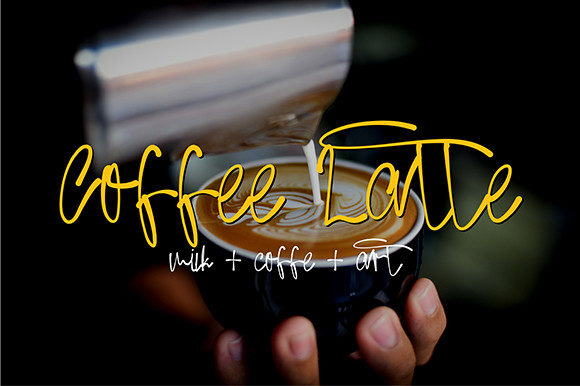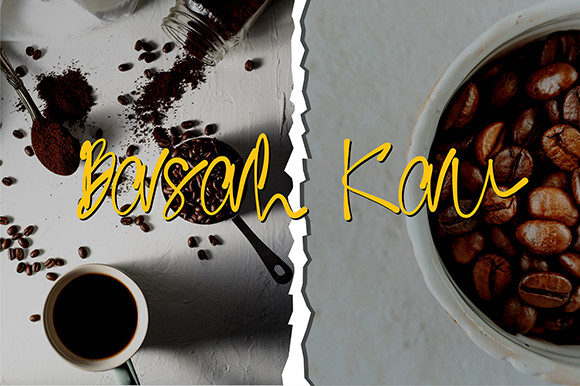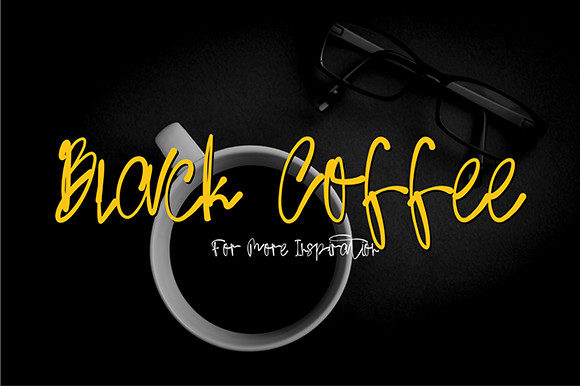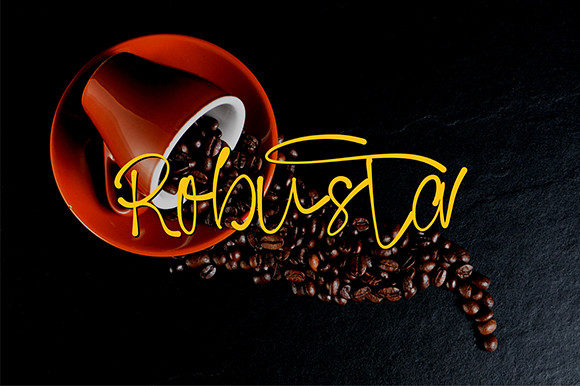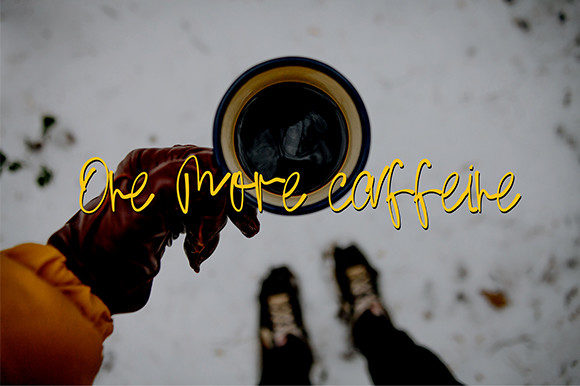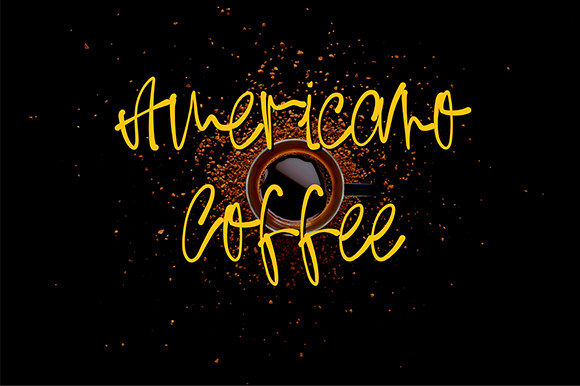
Introduction to Sektor Coffee Font
Have you ever stumbled upon a design that just screams ‘relaxation’? Maybe it’s a laid-back logo for a coffee shop, or a warm invitation for a weekend getaway. Whatever it is, it’s the kind of thing that makes you feel all cozy and inspired. For designers, finding that perfect visual language can be a game-changer. And that’s exactly where the Sektor Coffee Font comes in – a high-quality, free download that’s about to become your new go-to design resource.
With its unique, asymmetric style and casual handwriting feel, the Sektor Coffee Font is perfect for adding a relaxed touch to your creative projects. Whether you’re working on a branding project for a coffee shop or just need a font to give your design a little personality, this font is sure to deliver. Plus, its transparent background makes it super easy to use and customize.
Key Features of Sektor Coffee Font
- High-quality design for creative projects: Sektor Coffee Font is a premium font designed to elevate your designs and add a touch of sophistication.
- Transparent background: This font features a transparent background, making it easy to overlay on images or other design elements.
- Design resource: This font is perfect for designers, artists, and anyone looking to add a unique touch to their creative project.
- Unique characteristics: Sektor Coffee Font features a distinctive, hand-drawn design with subtle imperfections, giving it a unique and authentic look.
Honest Review: Sektor Coffee Font
I recently stumbled upon the Sektor Coffee Font and I must say, it’s a fantastic addition to any design resource. This high-quality font is perfect for any creative project that needs a unique touch. One of the standout features of this font is its transparent background, which makes it incredibly versatile and easy to use.
- ✨ Unique design aesthetic that sets it apart from other fonts
- ✨ Perfect for creating eye-catching headers and titles
However, I did encounter a few limitations while using the Sektor Coffee Font. The font’s bold and italic styles can sometimes appear a bit rough around the edges, and it may not be the best choice for projects that require a more polished look. Additionally, the font’s character set is somewhat limited, which may not be ideal for designers working on projects that require a wide range of characters.
Overall, I’m impressed with the Sektor Coffee Font and would highly recommend it to designers looking for a unique and high-quality font to add to their design resource. With its transparent background and free download, it’s an excellent choice for any creative project.
Sektor Coffee Font
Design Resource for Your Creative Project
The Sektor Coffee Font is a high-quality, free download that can elevate your design to the next level. Its unique and stylish design makes it perfect for any creative project.
Tips for Getting the Most Out of Sektor Coffee Font
To get the most out of the Sektor Coffee Font, use it on a transparent background to create a sleek and modern look. You can also experiment with different font sizes and colors to create a unique and eye-catching design.
Common Use Cases for Sektor Coffee Font
The Sektor Coffee Font is perfect for various design projects such as:
- Marketing materials and advertisements
- Website design and development
With its high-quality design and free download, the Sektor Coffee Font is a valuable design resource that can help you create professional-looking designs for your creative project.
Alternatives to Sektor Coffee Font
Monserrat is a high-quality, sans-serif font perfect for modern and creative projects. It has a transparent background, making it ideal for use on dark or gradient backgrounds. You can use it for headings, titles, or as a design resource for your brand identity. Montserrat is a free download and a popular choice among designers.
Montserrat compares to Sektor Coffee Font in its modern and sleek design. However, Montserrat has a more geometric feel and is better suited for digital displays. It lacks the handwritten feel of Sektor Coffee Font, but makes up for it with its versatility and high quality.